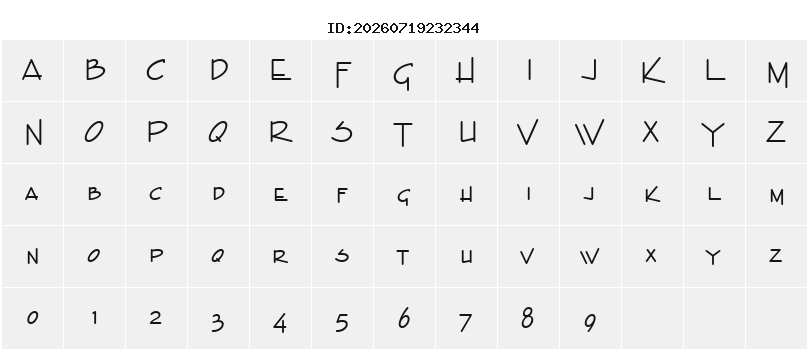
About EnviroSCDEE.ttf
EnviroSCDEE.ttf is a modern, elegant sans-serif font designed for ultimate readability and visual harmony. Perfect for branding, headlines, web design, and print materials.